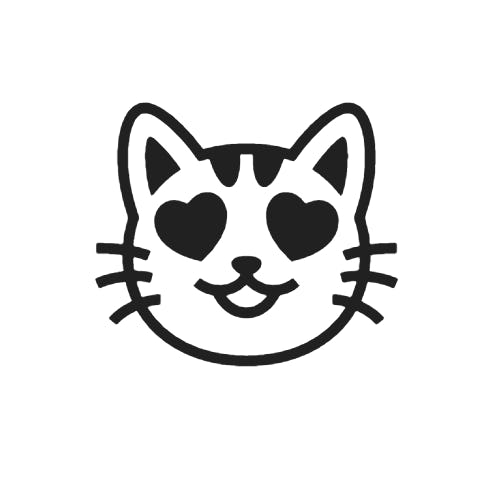
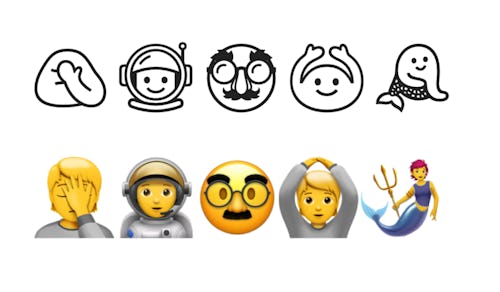
The inimitable Jennifer Daniel, a Unicode Emoji Subcommittee-Chair, wrote about a new effort to take emojis back to their humble roots. Before we had our gleaming set of 3,633 emoji characters like this cute little fly, or a weird bean, or the inimitable che vuoi pinched fingers. Emoji are introduced regularly, and their usage changes just like other slang (😂 is cheugy). Emoji are linguistics.
Our retina screens now show us the tears welling up in 🥺 and the details to convey the unconventional but sublime portrait of a bug playing the sax 🎷🐛. But despite all the bells and whistles of emoji in the 2020s, emoji expert Jennifer Daniel argues that we’ve lost a bit of the minimalist magic that emoji had in their early days. Back in 1999, a Japanese phone carrier supported 176 different 8-bit images: A little pixelated sun, a martini glass, and a slew of symbols.